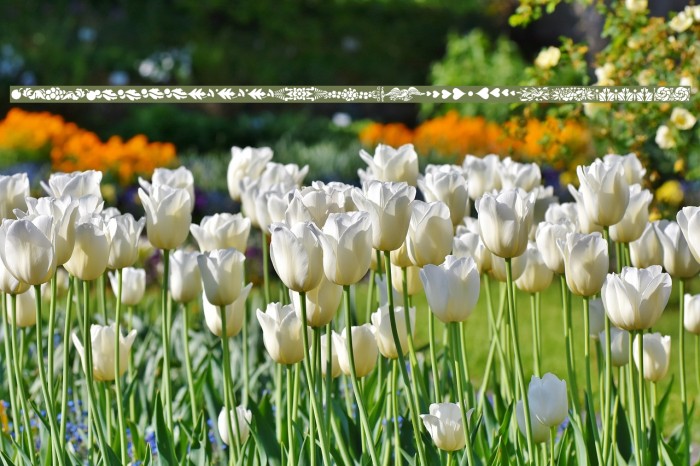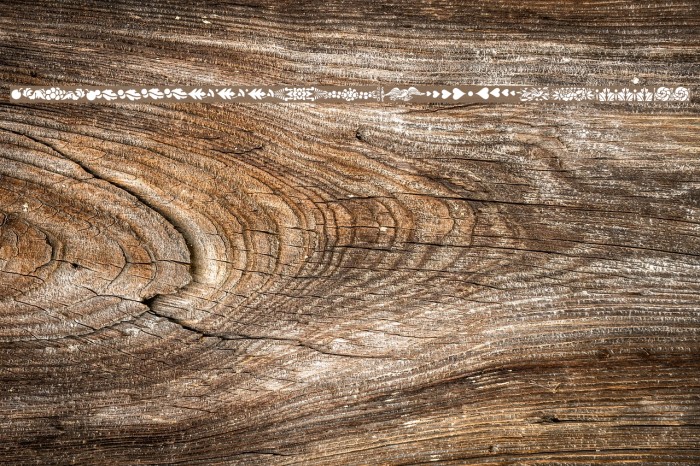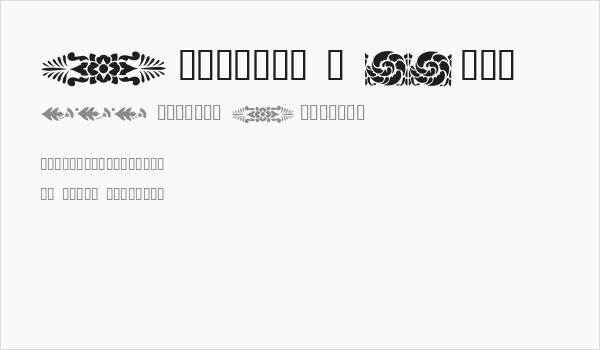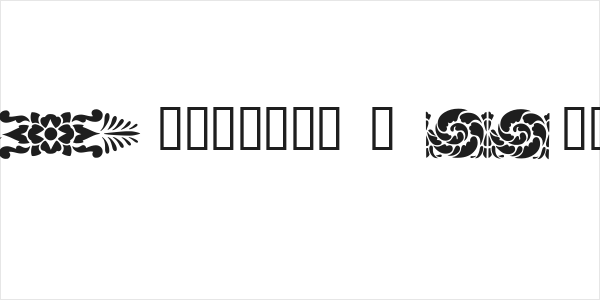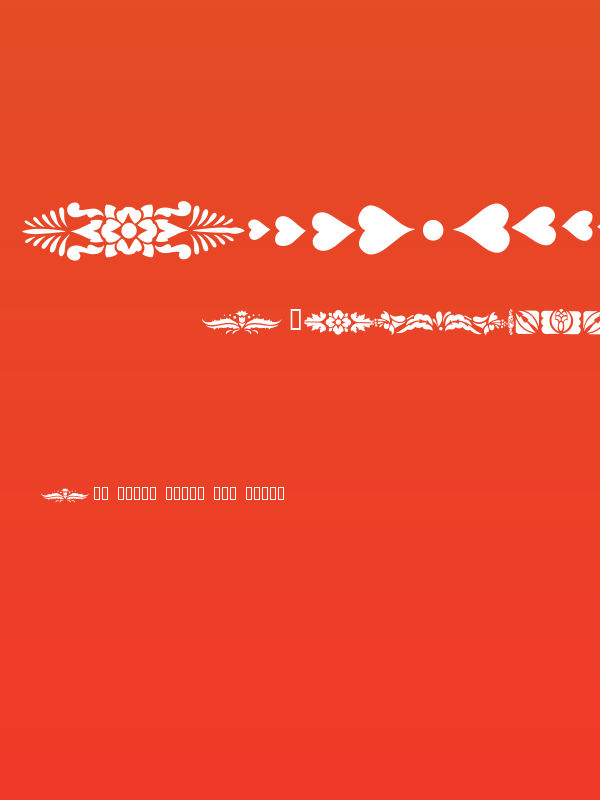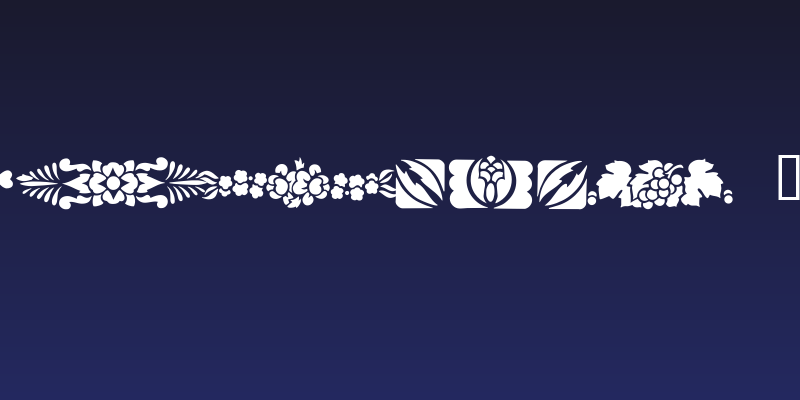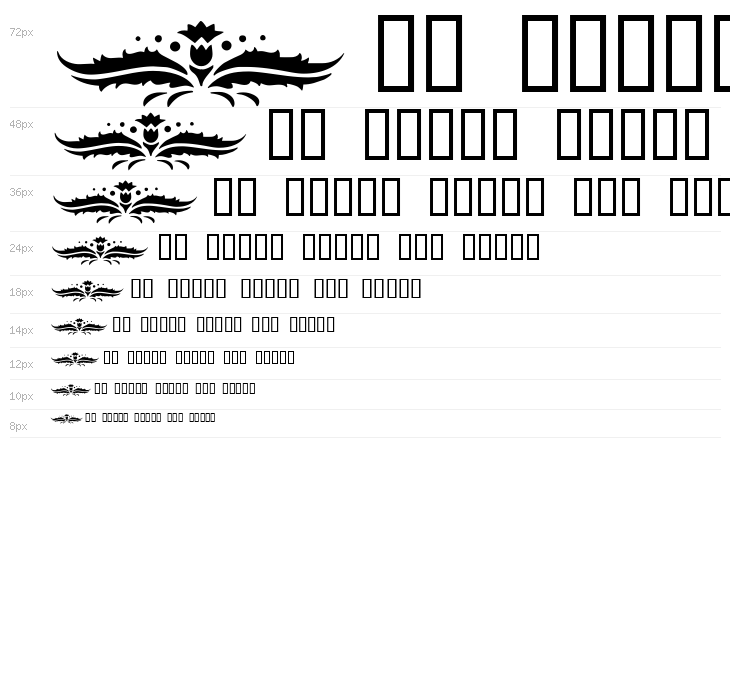
Dividers & Misc Font
Dividers & Misc Description
A decorative display font featuring ornate divider motifs and miscellaneous embellishments, with intricate flourishes and symmetrical patterns. The glyphs are highly stylized, focusing on ornamental linework rather than traditional letterforms.
| Overall Style | Decorative, Vintage |
| Use Case | Dividers, embellishments, ornamental accents |
| Proposed Projects | Invitations, certificates, decorative borders, wedding materials, vintage-style posters, scrapbooking. |